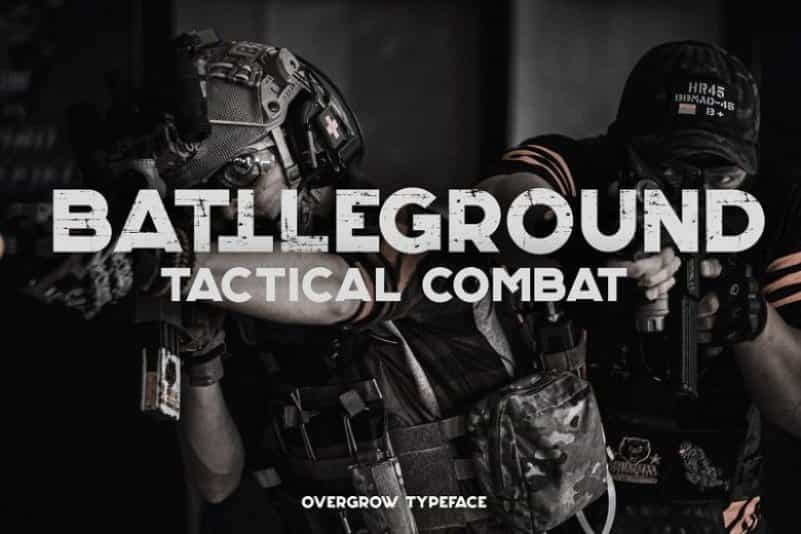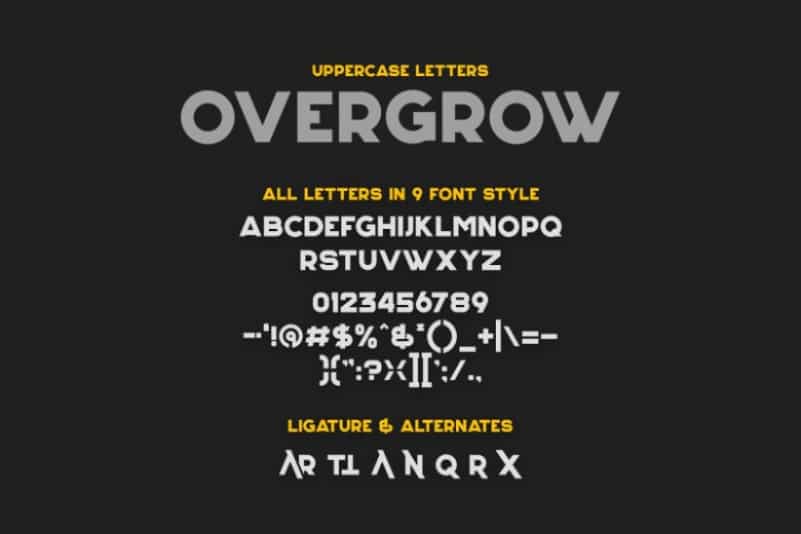
Overgrow Typeface is uppercase letters but has 9 font styles to improve your design, it comes with open type features such as stylistic alternates and some of the ligatures. Overgrow Typeface is perfect for logo, headings, branding, magazine, cover album, book cover, game title, apparel design, quotes, invitations, flyer, poster, greeting cards, product packaging, printed, etc.